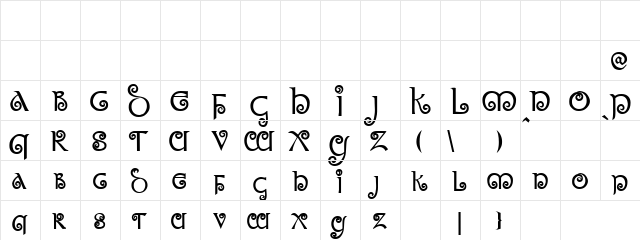
Scriptorium Regular
Design Context for Scriptorium Typeface
Scriptorium flows with the natural rhythm of handwritten lettering, making it ideal for designs that call for warmth and personal expression.
Font Pairing: Combine Scriptorium with a simple geometric sans for maximum contrast — the tension between flowing curves and clean structure is a classic typographic pairing.
Pro Tip: Use Scriptorium for short runs of text — names, titles, or taglines. Extended body copy in script faces tires the eye quickly.